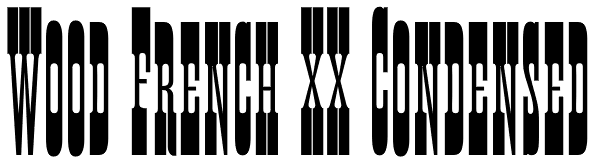
AI Wood
These six faces are interpreted from examples shown in Rob Roy Kelly's "American Wood Types" They are not merely scanned copies, but have been redrawn from scratch with various optical adjustments. Kelly points out that the true glory of the...
Wood French XX Condensed